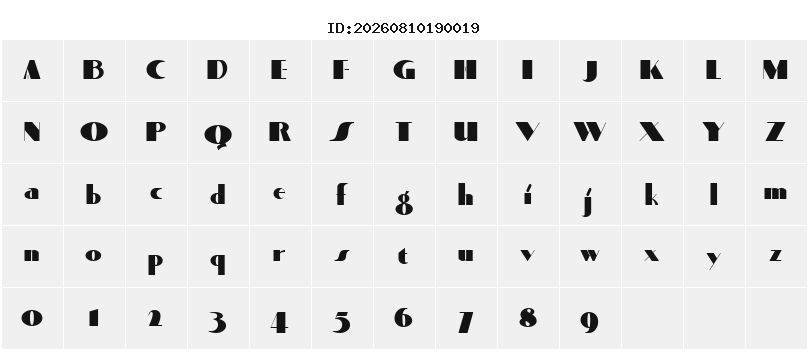
• Font Name: Quaint Notions NF
About Quaint Notions NF.ttf
Quaint Notions NF.ttf is a modern, elegant sans-serif font designed for ultimate readability and visual harmony. Perfect for branding, headlines, web design, and print materials.